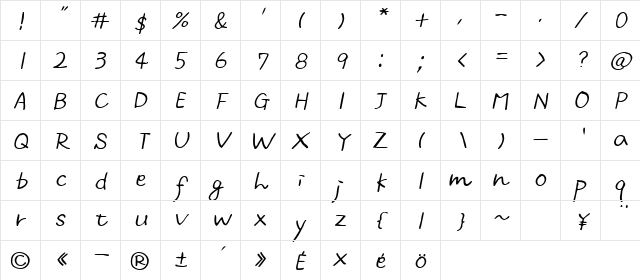
m script Two Oblique Free Font
m script Two Oblique
m script Two Family
Design Context for m script Two
m script Two flows with the natural rhythm of handwritten lettering, making it ideal for designs that call for warmth and personal expression.
Font Pairing: Combine m script Two with a simple geometric sans for maximum contrast - the tension between flowing curves and clean structure is a classic typographic pairing.
Pro Tip: Use m script Two for short runs of text - names, titles, or taglines. Extended body copy in script faces tires the eye quickly.